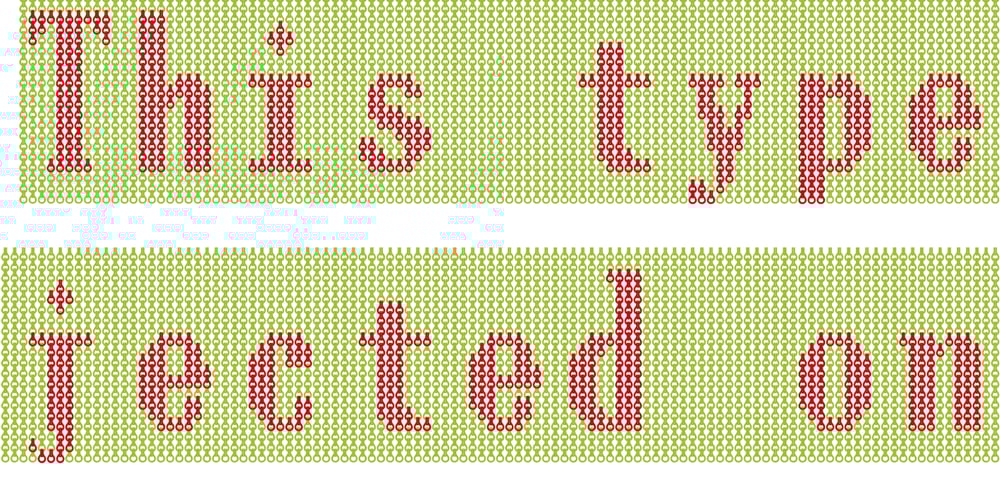
DF Zzzz Font Family was designed by Ko Sliggers and published by Dutchfonts. DF Zzzz contains 1 styles and family package options. This typeface, in fact a bitmap font ‘avant la lettre’ is an interpretation of the Old Face condensed type. It is being used where space is scarce. Its skeleton is projected on the chain structure of a fly screen. Eventually your text lines fill the space as wide as hypothetical doors can be. In small sizes the text appears to be drawn with a pencil.